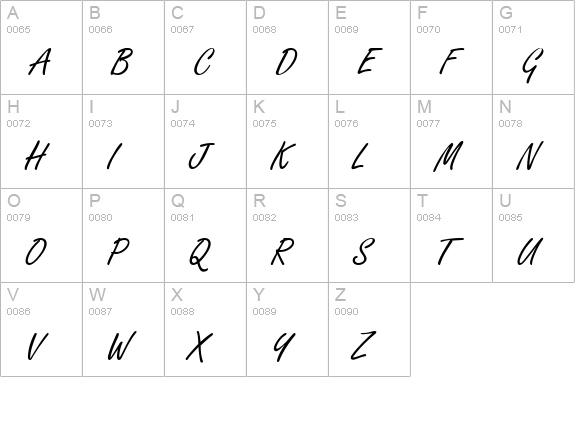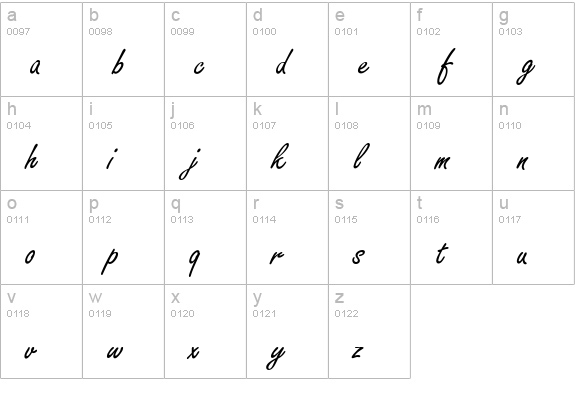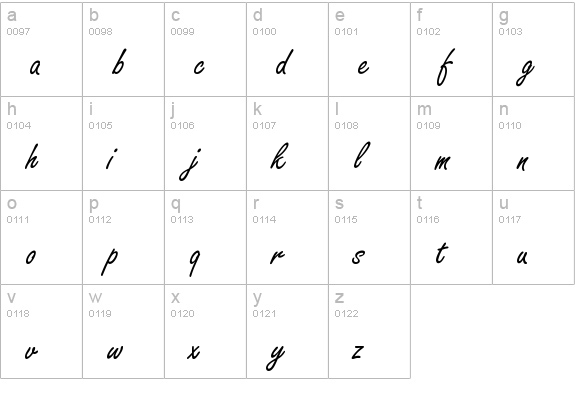
Freeport Font Details
Introducing Freeport font - a versatile and modern typeface designed to bring a touch of sophistication to your projects. This elegant font features clean lines and a timeless appeal that make it perfect for a wide range of design applications. With its sleek and stylish appearance, Freeport font is sure to make a lasting impression on any project. What sets Freeport font apart is not only its stunning design, but also the fact that it is completely free to download. That's right, you can easily access this beautiful font at FontsMarket.com without any cost. Whether you're working on a branding project, website design, or any other creative endeavor, Freeport font is the ideal choice to add a touch of class and elegance. Download it today and elevate your designs with this exceptional typeface.